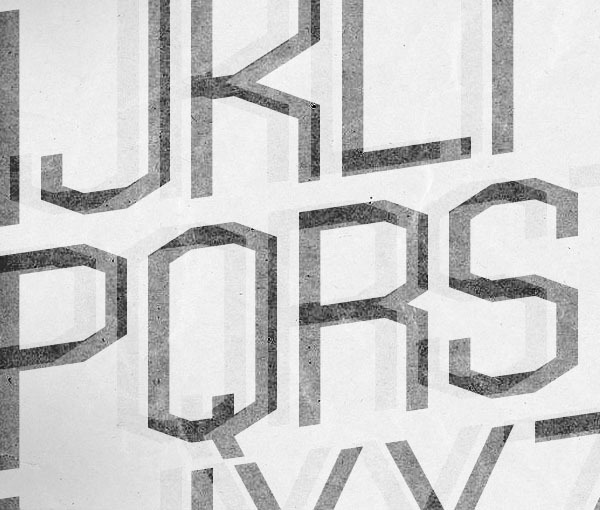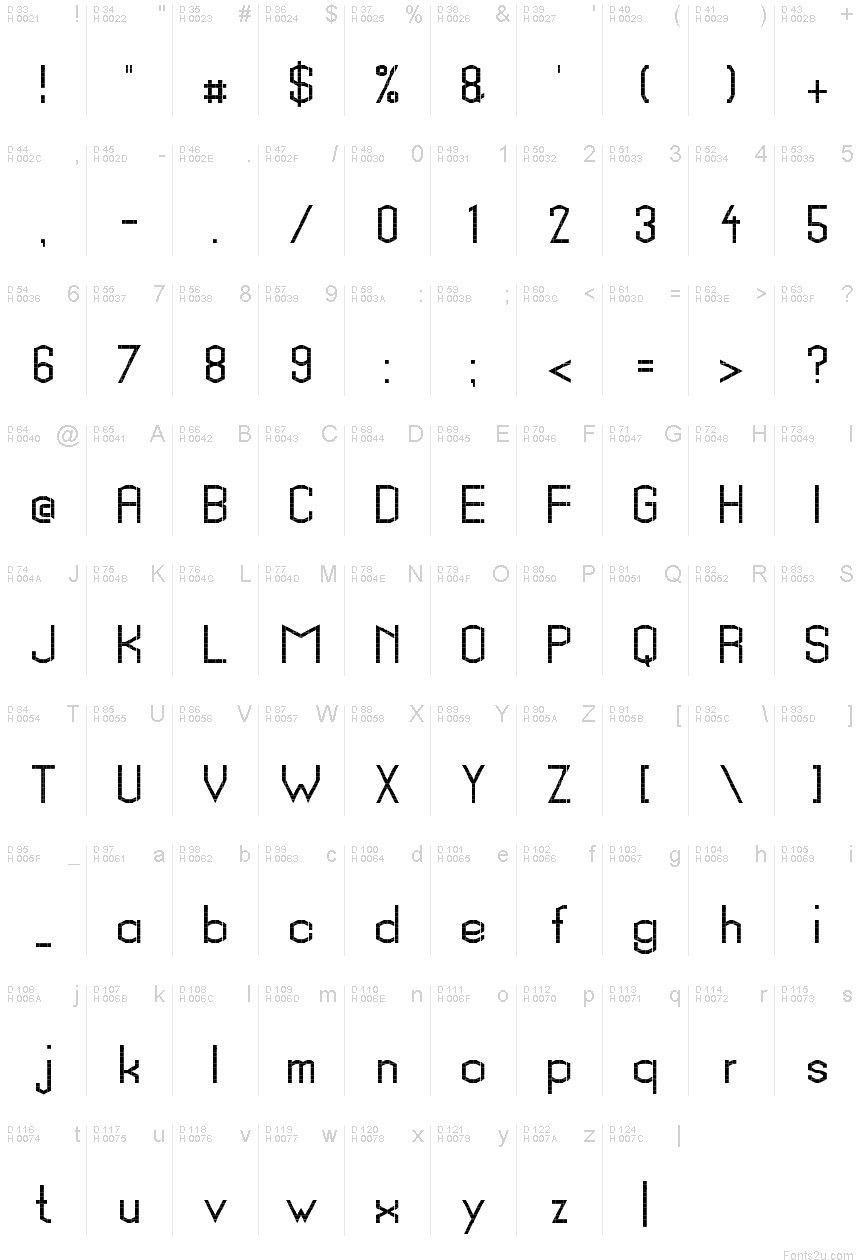
Schrottinger by Justus Schrotte is a free techno display font with broad, precise monoline letters, angular joins, and faceted curves that recall early vector screens and machine-cut signage. Octagonal shapes give even the round letters a crisp mechanical stamp.
It is especially convincing for game title cards, where its open construction and mechanical proportions can establish a retro-futurist setting, and the same qualities suit electronic music posters and technology event graphics. On gadget packaging or arcade merchandise, the clipped corners and polygonal curves can echo circuit diagrams, control-panel frames, and other geometric illustration rather than acting as neutral labeling.
Schrottinger by Justus Schrotte is a free outlined techno display font.